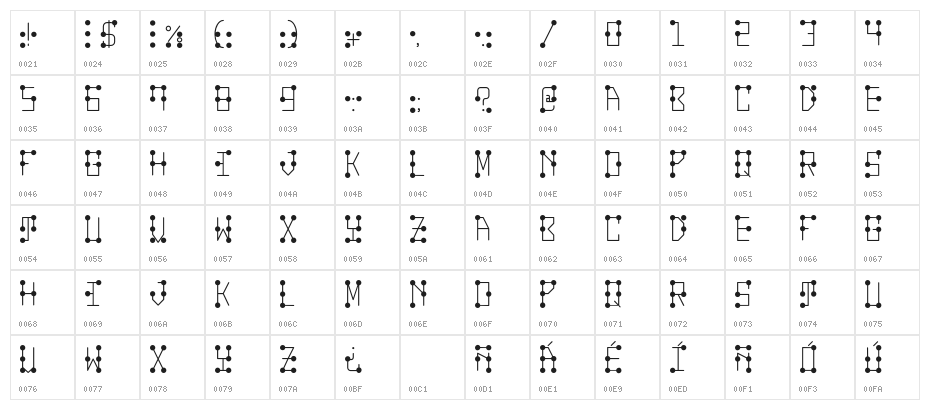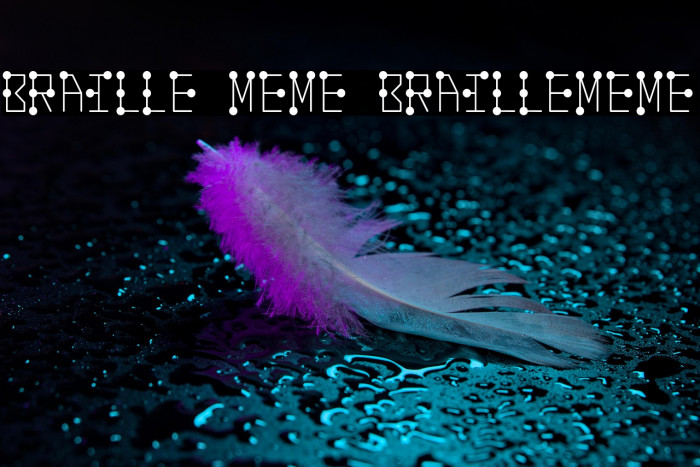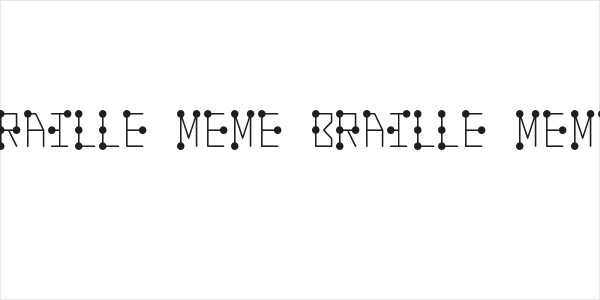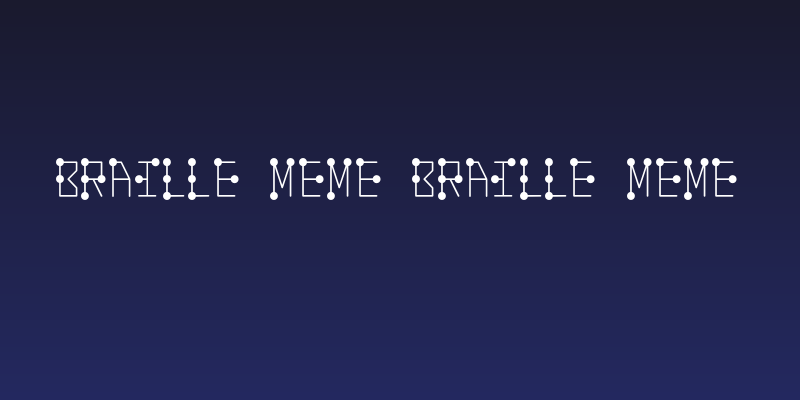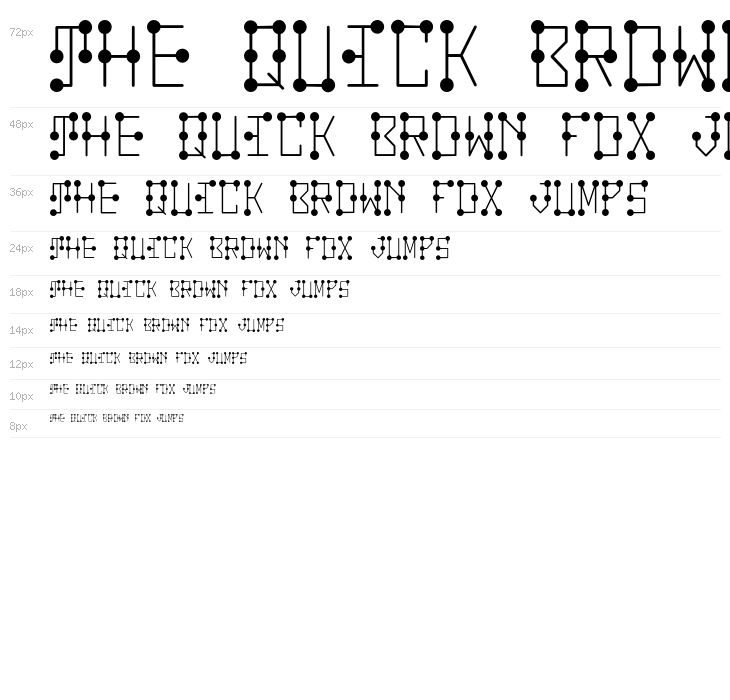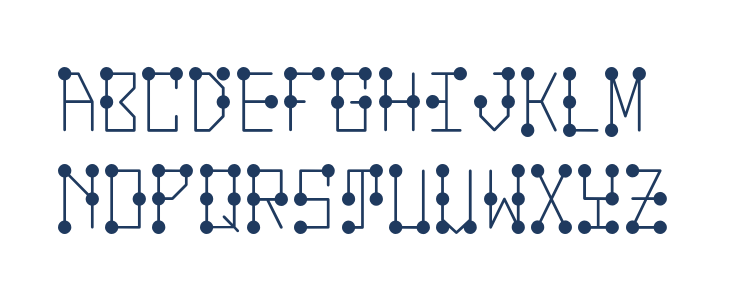
Braille Meme Braille-Meme Font
Braille Meme Braille-Meme Description
This font features a unique design that combines elements of Braille with a modern, geometric style. Each character is constructed with a series of dots and lines, creating a visually striking and unconventional appearance. The uppercase and lowercase letters maintain a consistent structure, with dots positioned at key points to form each character. Numbers and special characters follow the same design principles, ensuring uniformity across the font. The overall look is both futuristic and playful, making it suitable for creative projects that aim to stand out.
| Use Case | Logos, Posters, Creative Branding |
| Proposed Projects | Ideal for creative branding, futuristic designs, tech-related projects, and playful visual content. |